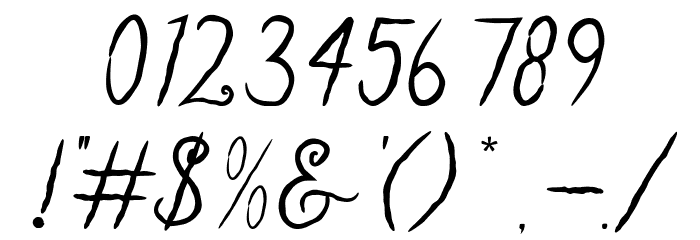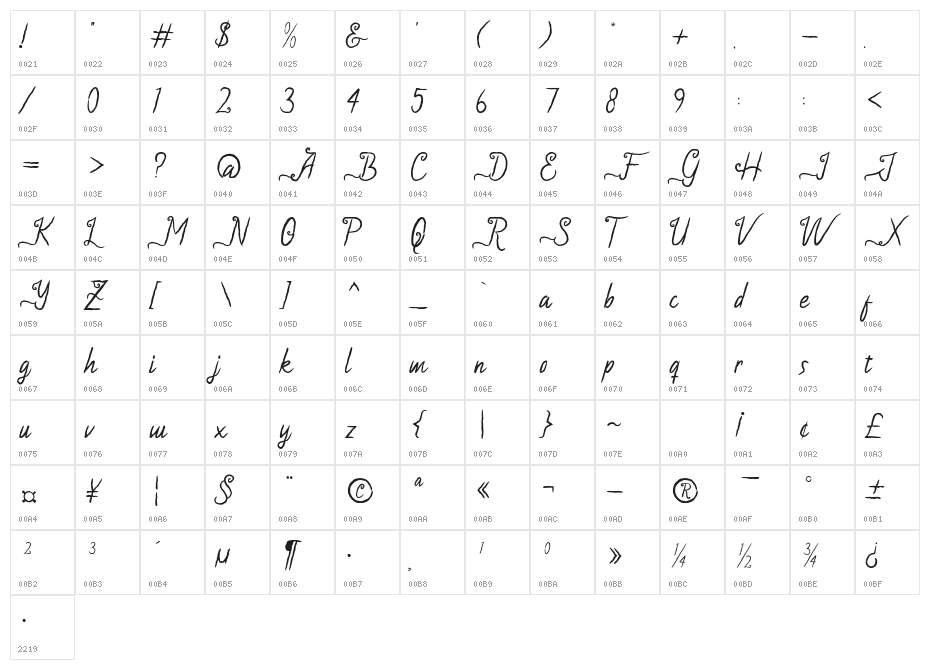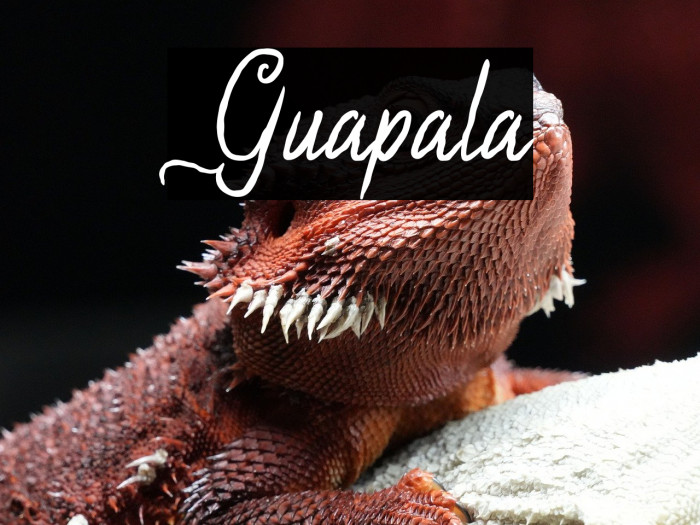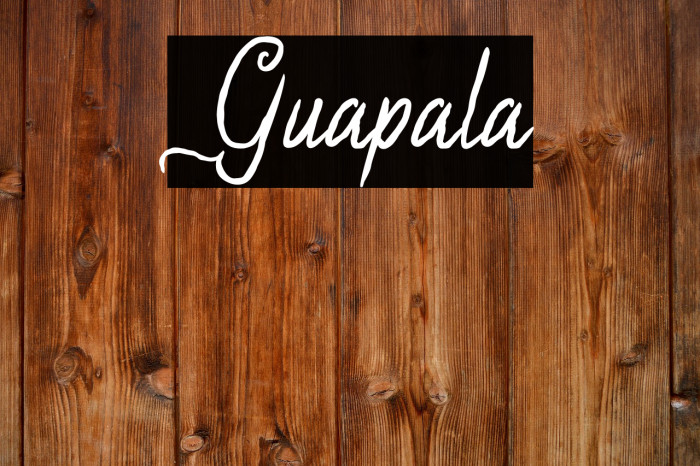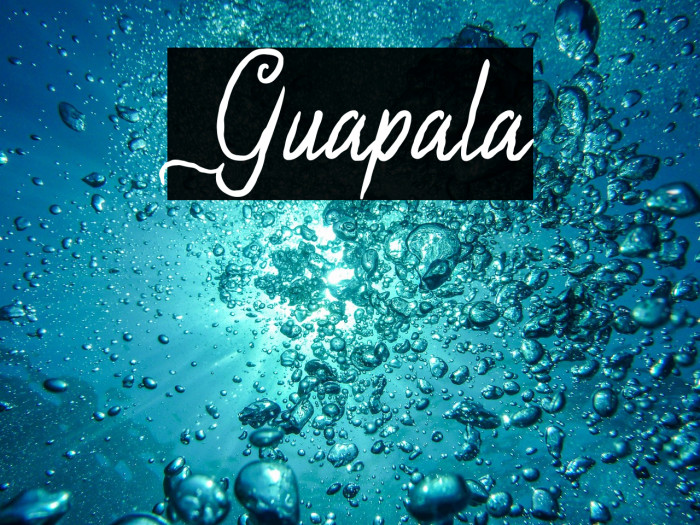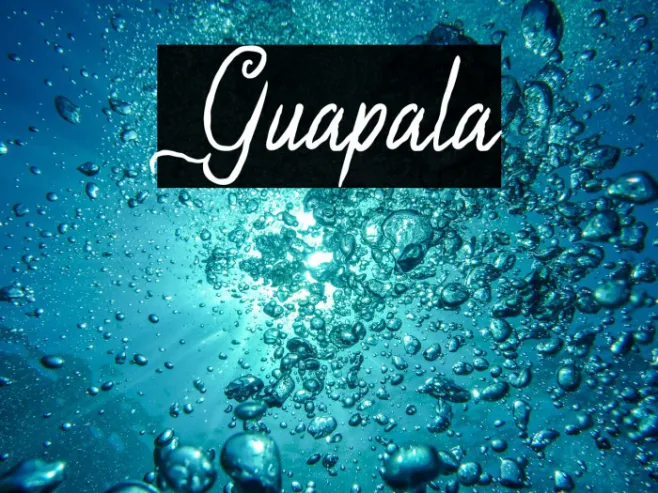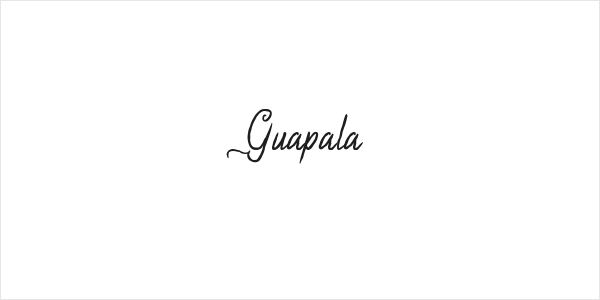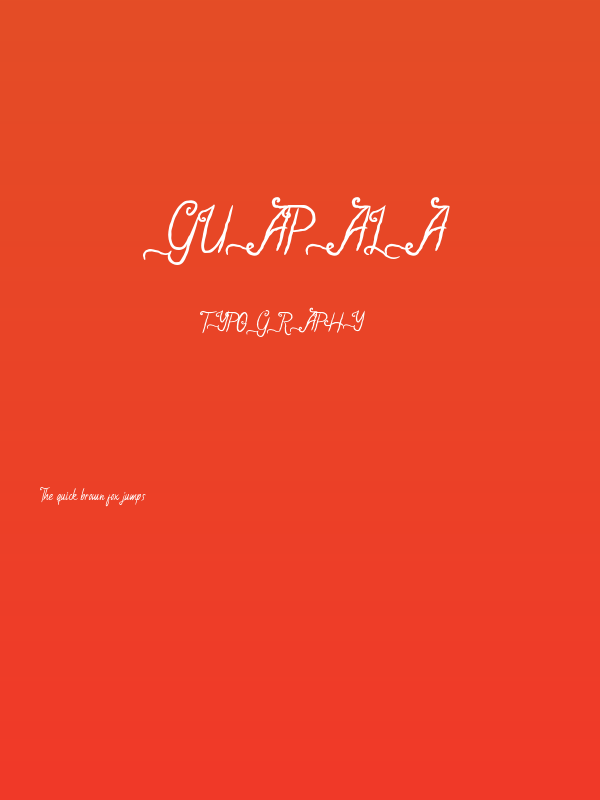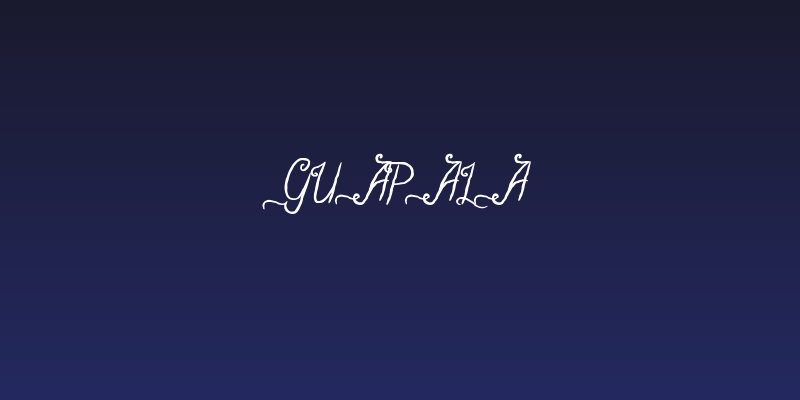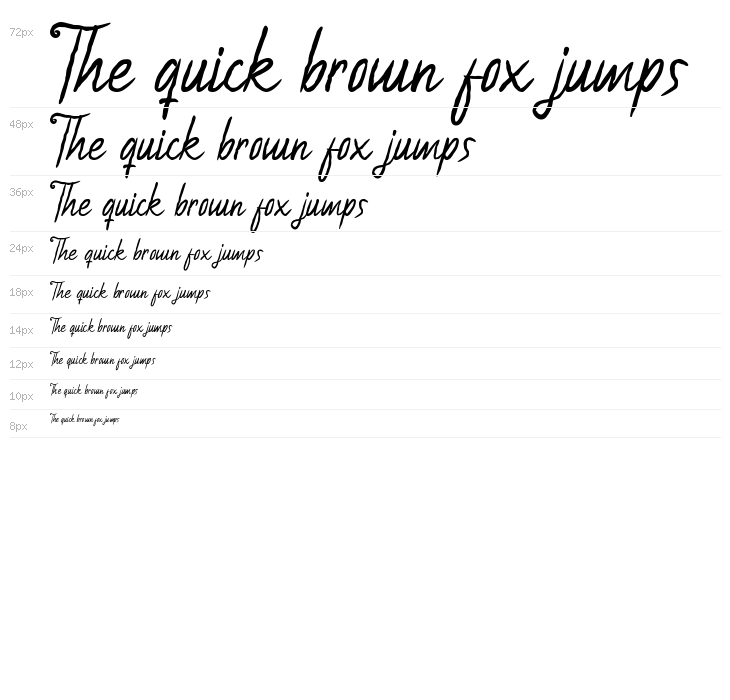
Guapala Font
Guapala Description
This font features a decorative and elegant script style with a whimsical flair. The uppercase letters are characterized by their flowing lines and intricate swirls, giving them a sophisticated and artistic appearance. The lowercase letters maintain a consistent cursive style, offering a smooth and connected look that enhances readability while retaining an artistic touch. The numerals are designed with a similar flair, incorporating subtle curves and unique styling. Special characters are creatively integrated, maintaining the overall aesthetic of the font. This font is ideal for projects that require a touch of elegance and creativity.